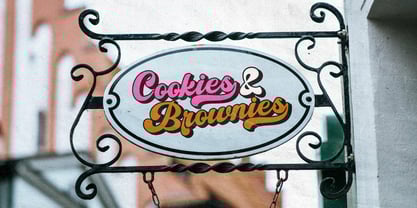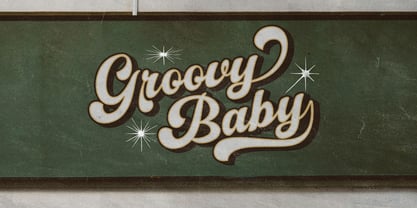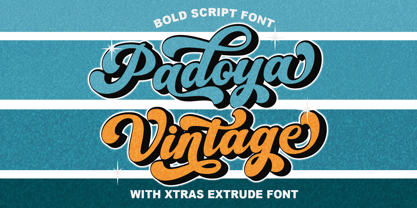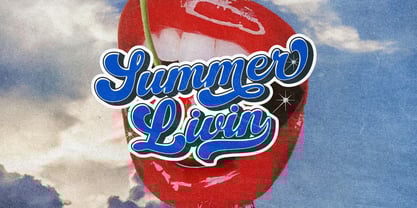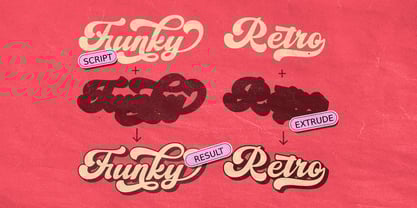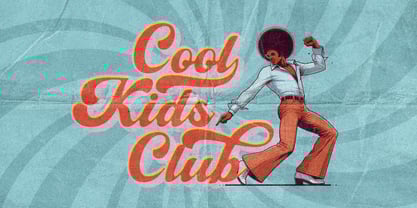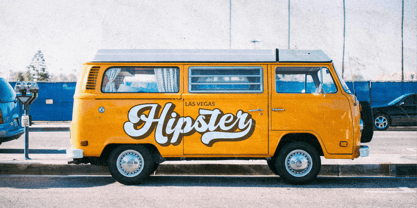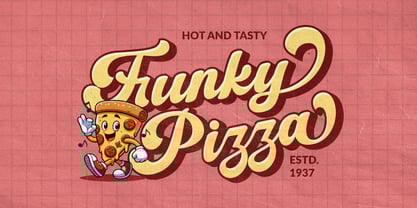
Padoya Vintage
by madjack.font
The Padoya Vintage Font Family was designed by Zaki Muhammad and published by madjack.font. Padoya Vintage contains 2 styles and family package options. More about this family
🌟 Padoya Vintage – Bold Script Font with a Classic Retro Feel!
Relive the spirit of the past with Padoya Vintage, a bold script font that blends classic style with a modern touch!
With smooth curves, bold extruded shadows, and a distinctive retro texture, this font is perfect for a variety of design projects such as:
Logo & branding design
Vintage-themed posters
Classic product packaging
T-shirts & merchandise
Nostalgic social media designs
✨ Equipped with Font Xtras Extrude, this font allows for stunning 3D effects with just a few clicks!
Designers: Zaki Muhammad
Foundry: madjack.font